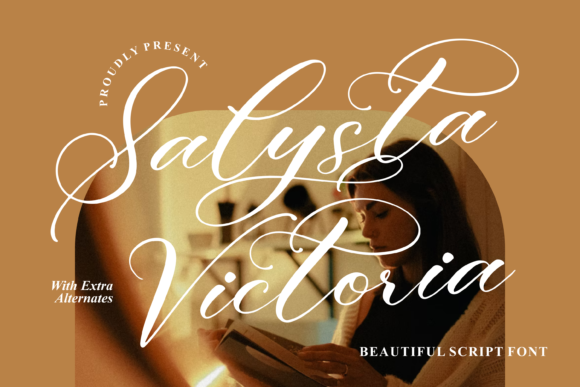
Prepare to be captivated by the exquisite elegance of Salysta Victoria, a masterpiece script font that exudes contemporary charm and timeless grace. Inspired by the enduring artistry of classic calligraphy, Salysta Victoria is a visual symphony of refined lines and enchanting curves.
Immerse yourself in a world of effortless style with Salysta Victoria. Its meticulously crafted characters dance across your screen, forming words that whisper sophistication and allure. Witness how each letter transforms into a work of art, adorned with delicate flourishes and subtle nuances that elevate your designs to new heights of beauty.
With Salysta Victoria, you hold the key to unlocking a world of design possibilities. Its versatile nature seamlessly adapts to a myriad of creative endeavors, from enchanting wedding invitations and captivating social media posts to eye-catching logos and unforgettable branding materials. Unleash your inner artist and let your imagination soar as you weave words into captivating tapestries of visual delight.
But Salysta Victoria is more than just a font; it's an experience. Each character is imbued with a touch of magic, inviting you to connect with your audience on an emotional level. Its graceful curves and delicate strokes evoke a sense of warmth and intimacy, drawing your readers into a world where words come alive.
Discover the transformative power of Salysta Victoria today and elevate your designs to the realm of the extraordinary. Its charm, versatility, and emotional appeal will captivate your audience, leaving an unforgettable impression that lingers long after the final page is turned.